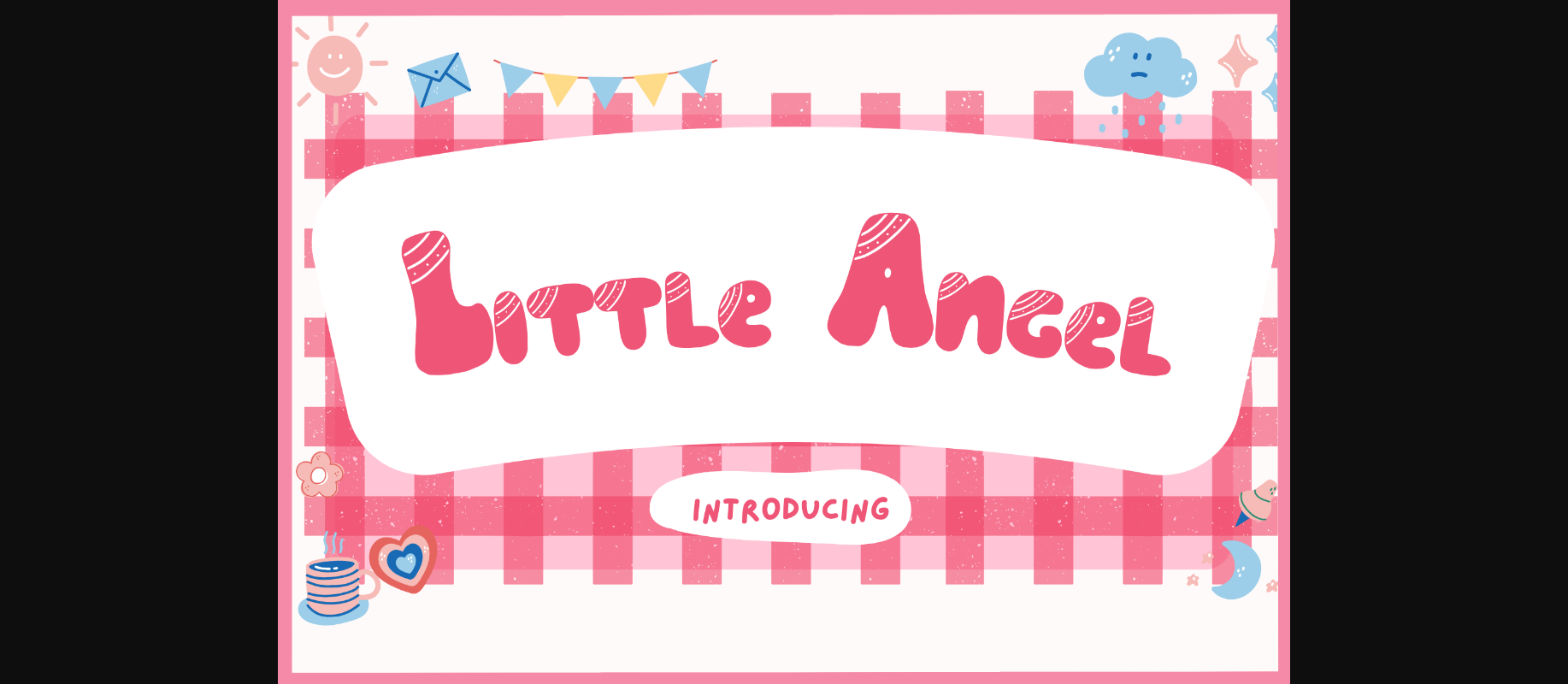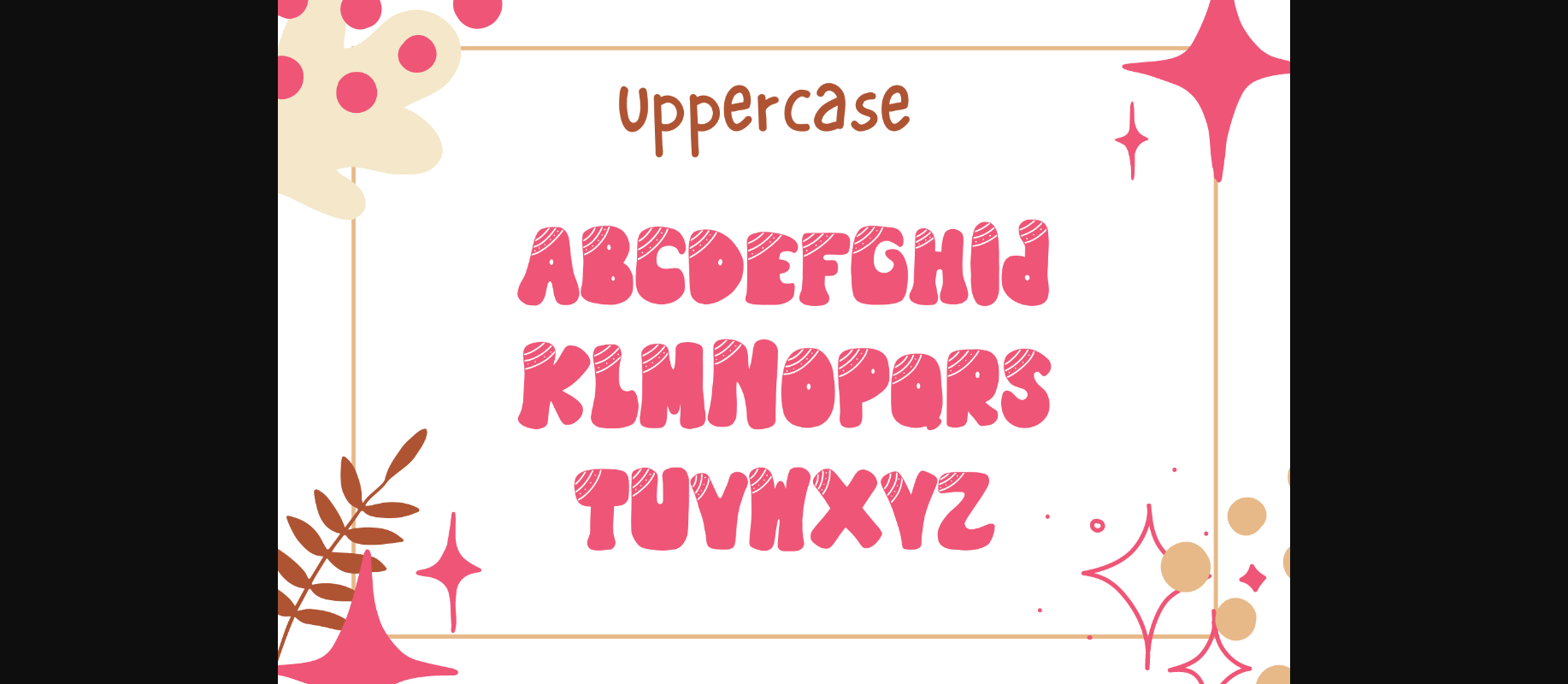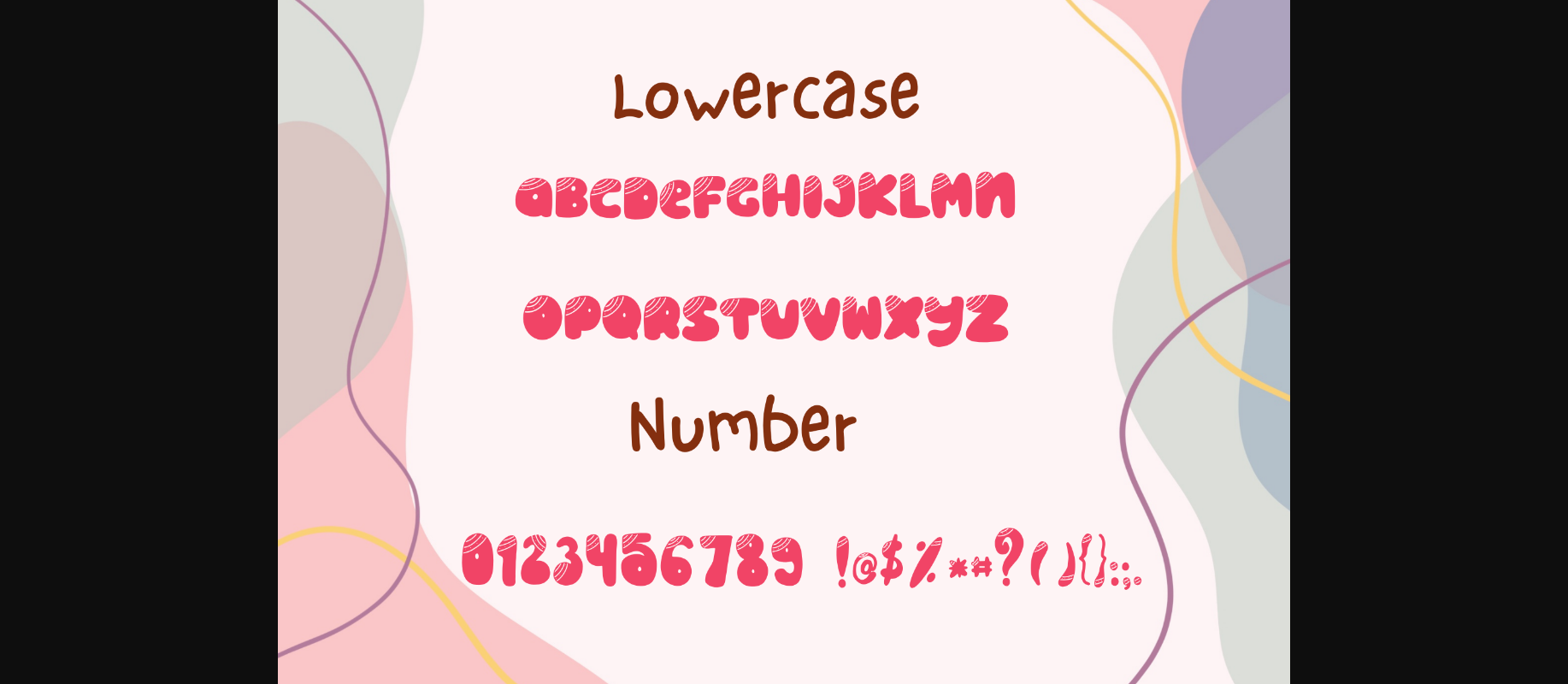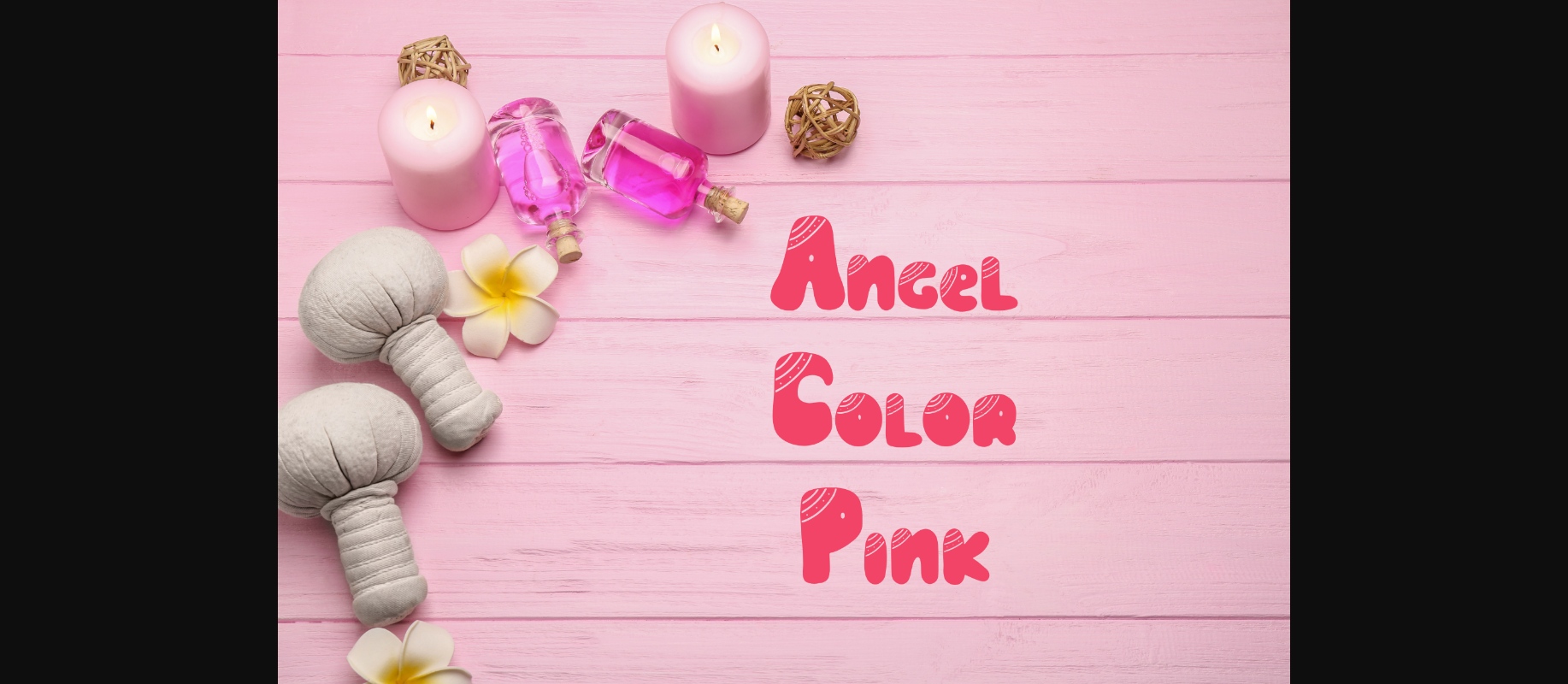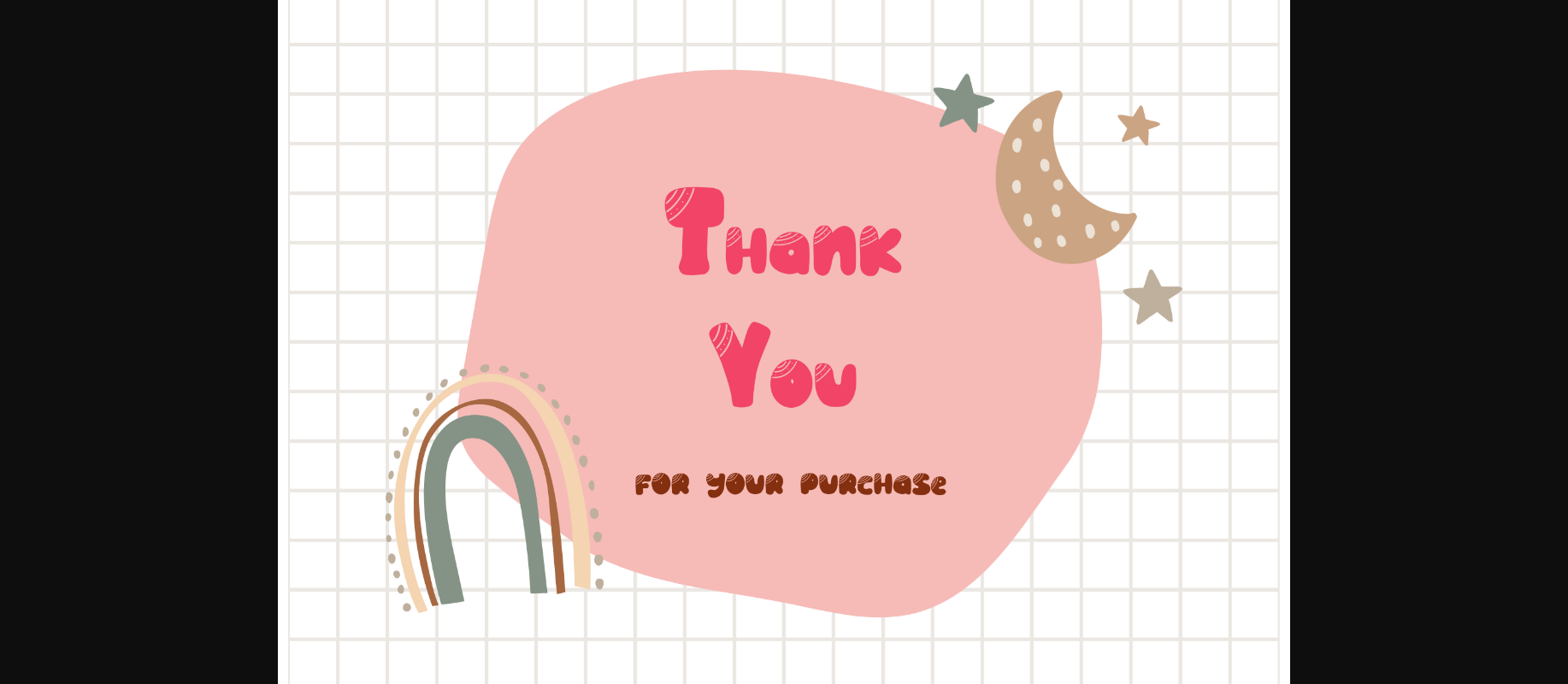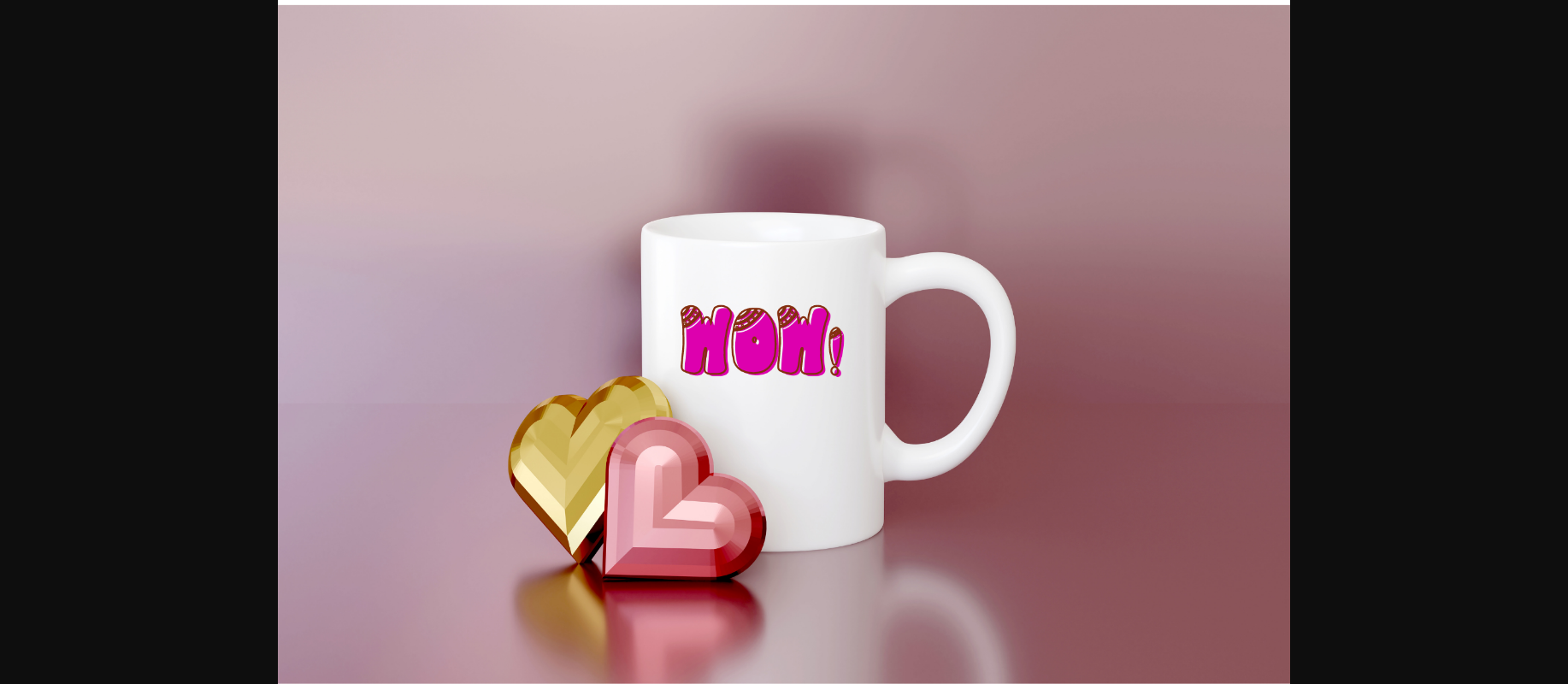
Little Angel is an adorable decorative font with bold characters and a playful feel. Use it for educational projects, presentations, school projects, or anything that needs a friendly look.